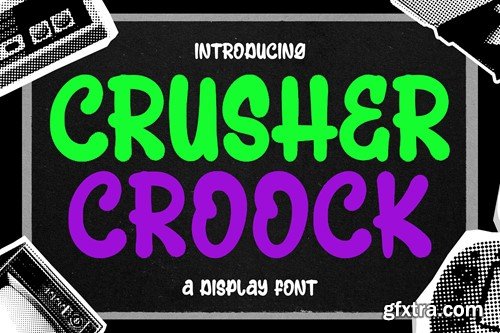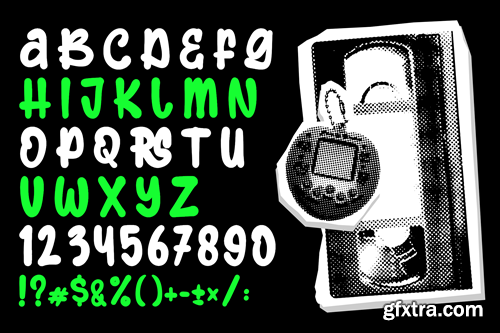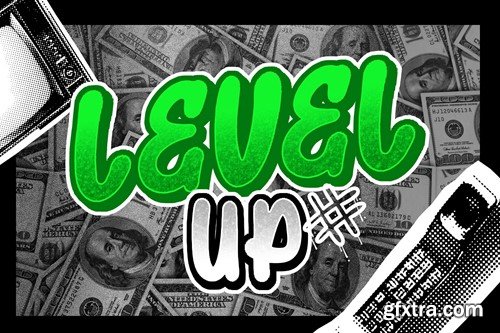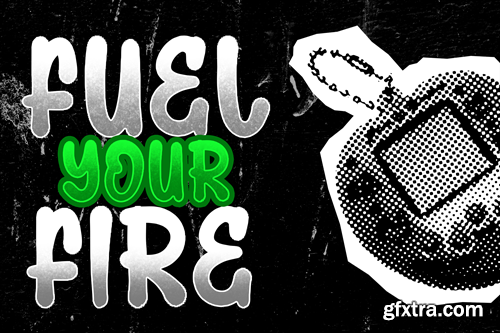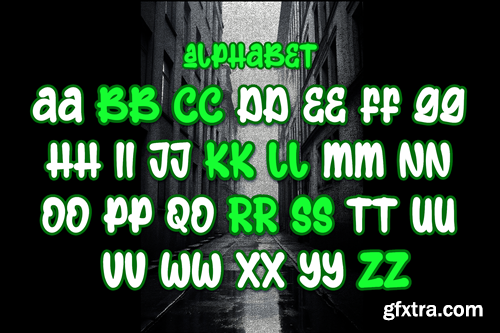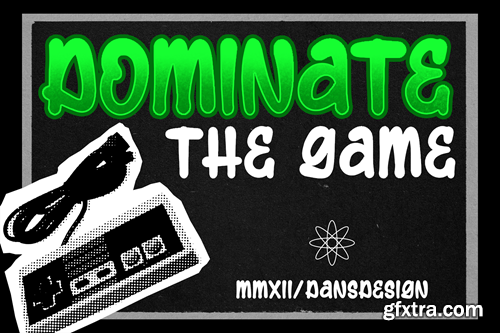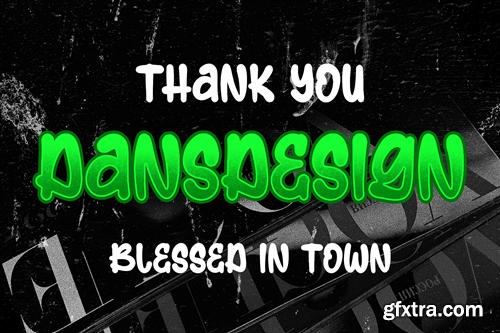
Crusher Crook Marker Graffiti Display Font V2 CRUPB
Crusher Croock Marker Graffiti Display Font
Crusher Croock Marker Graffiti Display Font highly detailed. Marker Display Font. It would make a great choice for exquisite retro-urban designs, business branding, logos, Apparel designs, and more. Crusher Croock Marker Graffiti Display Font (OTF/TTF) Crusher Croock Marker Graffiti Display Font (WEB TT/PS) Featured : Accents (Multilingual characters) PUA encoded Numerals and Punctuation (OpenType Standard)